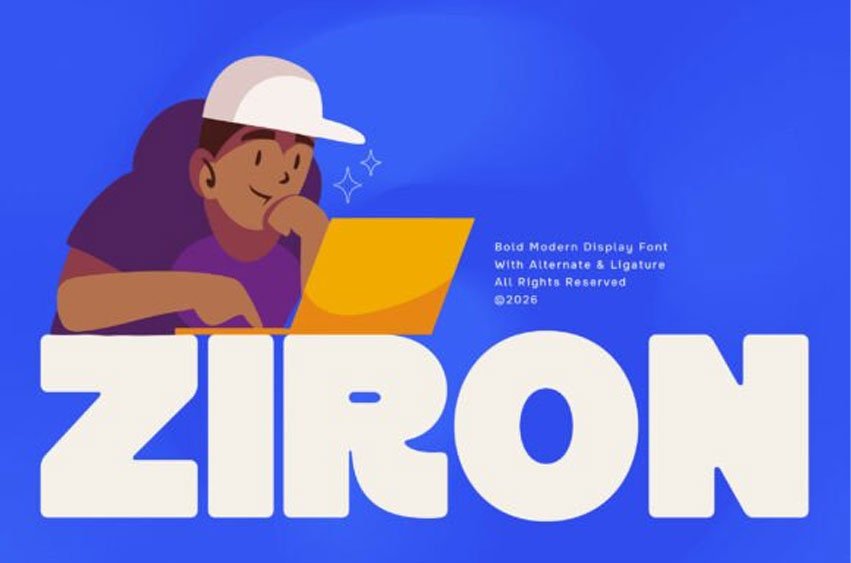
Ziron Font is a bold modern sans display font that radiates energy, fun, and confidence. Designed with strong shapes and lively character, Ziron brings a playful yet powerful presence to your typography.
Its bold structure combined with dynamic curves creates a vibrant rhythm, making every word feel engaging and full of life.